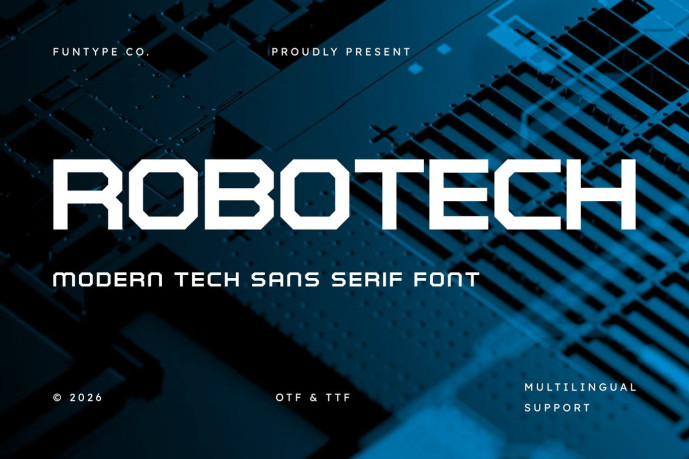
Robotech – Modern Tech Sans Serif Font
Robotech is a bold, high-impact, and modern tech sans serif font, engineered to bring an authoritative mechanical presence, rigid geometric weight, and unique cybernetic aesthetic to contemporary display layouts. Featuring a wide horizontal footprint, powerful modular block structures, and distinct octagonal chamfered cuts, Robotech introduces a premium sci-fi editorial, high-tech hardware, and prominent digital gaming media identity designed to claim absolute visual focus.
This font family is the ultimate choice for creative directors, digital gaming publishers, and agency brand designers looking to implement a robust typography identity for major text hierarchies. Whether you are developing bold corporate enterprise logotypes, science fiction book layouts, tech-lifestyle branding, cinematic movie title sequences, esports presentation headers, or prominent digital web banners, Robotech stands out with supreme clarity and structural confidence.
Modern Tech Sans Structure: Optimized with a solid horizontal footprint and modular grid alignment for high-impact title compositions.
Rigid Octagonal Geometry: Bold block lines with distinctive angular corner cuts crafted to secure instant audience attention.
Premium Cybernetic Aesthetic: Clean linear strokes balanced with sharp mechanical definitions, perfect for cutting-edge corporate identities and digital gaming media networks.